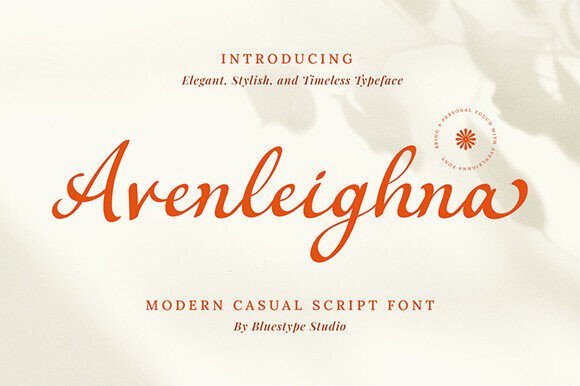
Avenleighna Font: The Perfect Blend of Vintage Allure and Modern Simplicity
In the world of typography, fonts play a crucial role in conveying the tone and personality of a brand or design. With the numerous font options available, finding the perfect one that captures the essence of your project can be a daunting task. However, if you’re looking for a font that exudes elegance, sophistication, and a touch of nostalgia, look no further than Avenleighna Font. In this article, we’ll explore the unique features of Avenleighna, its design inspiration, and the various ways you can utilize this beautifully crafted script font in your designs.
Avenleighna Font: A Beautifully Crafted Script Font
Avenleighna is a stunning script font that seamlessly blends effortless casual strokes with a hint of vintage allure and modern simplicity. Its unique design makes it an excellent choice for a wide range of applications, from logos and branding to invitations, social media, and editorial layouts. The font’s versatility allows it to move effortlessly between contemporary designs and nostalgic classics, making it an ideal choice for designers who want to create visually appealing and timeless pieces.
The Design Inspiration Behind Avenleighna
The Avenleighna font is inspired by the classic script fonts of the past, with a modern twist. Its design is characterized by flowing lines, elegant curves, and a subtle vintage flair. The font’s creator aimed to craft a script font that would evoke a sense of nostalgia while still feeling fresh and modern. The result is a font that is both sophisticated and approachable, making it perfect for a wide range of design applications.
Key Features of Avenleighna Font
- Effortless Casual Strokes: Avenleighna’s casual strokes give it a relaxed, organic feel that’s perfect for creating designs that feel approachable and friendly.
- Vintage Allure: The font’s vintage flair adds a touch of sophistication and elegance, making it ideal for designs that require a sense of luxury or nostalgia.
- Modern Simplicity: Avenleighna’s modern simplicity ensures that it remains legible and clean, even at smaller font sizes.
- Versatility: The font’s versatility makes it suitable for a wide range of design applications, from logos and branding to invitations and editorial layouts.
10 Creative Ways to Use Avenleighna Font in Your Designs
- Logos and Branding: Avenleighna’s unique blend of vintage and modern elements makes it an excellent choice for logos and branding projects that require a touch of sophistication.
- Invitations and Event Materials: The font’s elegant curves and flowing lines make it perfect for creating beautiful invitations, wedding stationery, and event materials.
- Social Media Graphics: Avenleighna’s modern simplicity and legibility make it an excellent choice for social media graphics, including Facebook posts, Instagram stories, and Twitter headers.
- Editorial Layouts: The font’s classic feel and versatility make it suitable for editorial layouts, including magazine articles, blog posts, and newspaper headlines.
- Packaging Design: Avenleighna’s vintage flair and modern simplicity make it an excellent choice for packaging design, including product labels, tags, and packaging inserts.
- Advertising: The font’s elegant curves and flowing lines make it perfect for creating eye-catching advertisements that require a touch of sophistication.
- Web Design: Avenleighna’s legibility and modern simplicity make it an excellent choice for web design, including website headers, navigation menus, and body text.
- Print-on-Demand Products: The font’s unique blend of vintage and modern elements makes it perfect for creating beautiful print-on-demand products, including t-shirts, mugs, and phone cases.
- Signage: Avenleighna’s bold, flowing lines make it an excellent choice for signage, including storefront signs, directional signs, and exhibition displays.
- Stationery: The font’s classic feel and elegance make it suitable for creating beautiful stationery, including letterheads, business cards, and envelopes.
Tips and Tricks for Using Avenleighna Font Effectively
- Pair it with a Sans-Serif Font: Avenleighna pairs beautifully with sans-serif fonts, creating a harmonious contrast that’s perfect for body text and headings.
- Use it in Combination with Images: The font’s elegant curves and flowing lines make it perfect for use in combination with images, creating a beautiful visual balance.
- Experiment with Font Sizes: Avenleighna’s versatility allows it to be used at a wide range of font sizes, from large headings to small body text.
- Pay Attention to Kerning: As with any font, pay attention to kerning to ensure that the text is legible and visually appealing.
In conclusion, Avenleighna Font is a beautifully crafted script font that blends effortless casual strokes with a hint of vintage allure and modern simplicity. Its versatility, elegance, and sophistication make it an excellent choice for a wide range of design applications, from logos and branding to invitations, social media, and editorial layouts. By following the tips and tricks outlined in this article, you can effectively use Avenleighna in your designs to create visually appealing and timeless pieces.